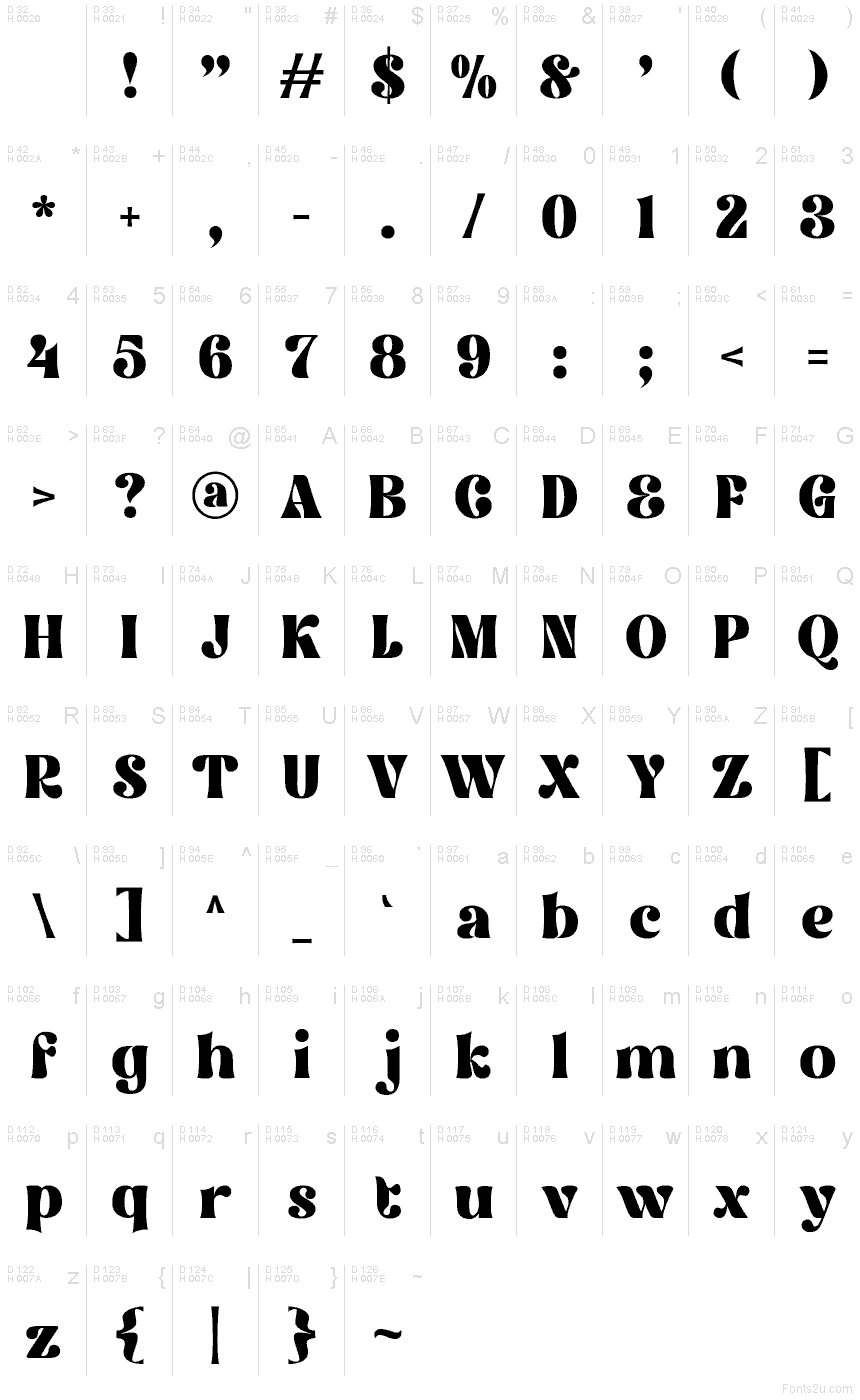
Miskan Regular
Miskan font by Wildan Type is a display font with distinctive character shapes. It features a retro bold style and gives a sophisticated and expressive feel within every letterform. The structure has an elegant design similar to serifs, yet it has no classic feet in the construction. The general visual flow is pleasant to the eye and quite unique due to its appearance.